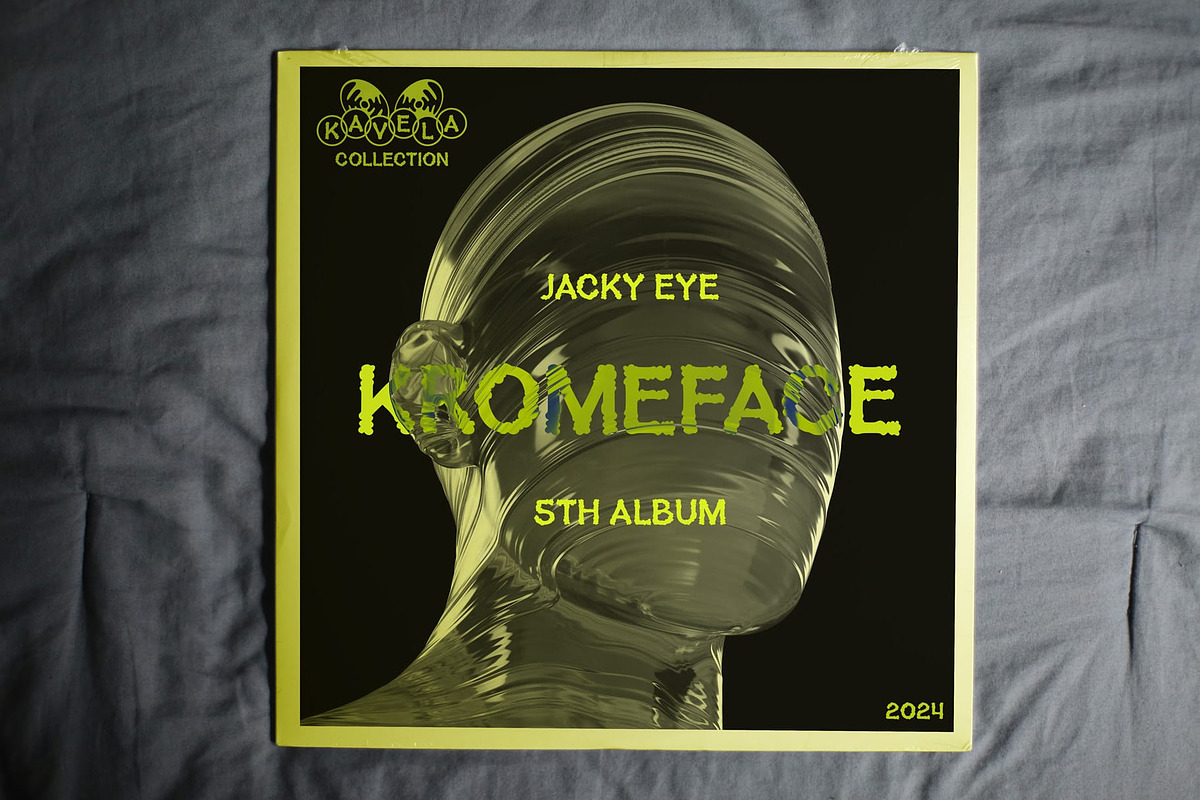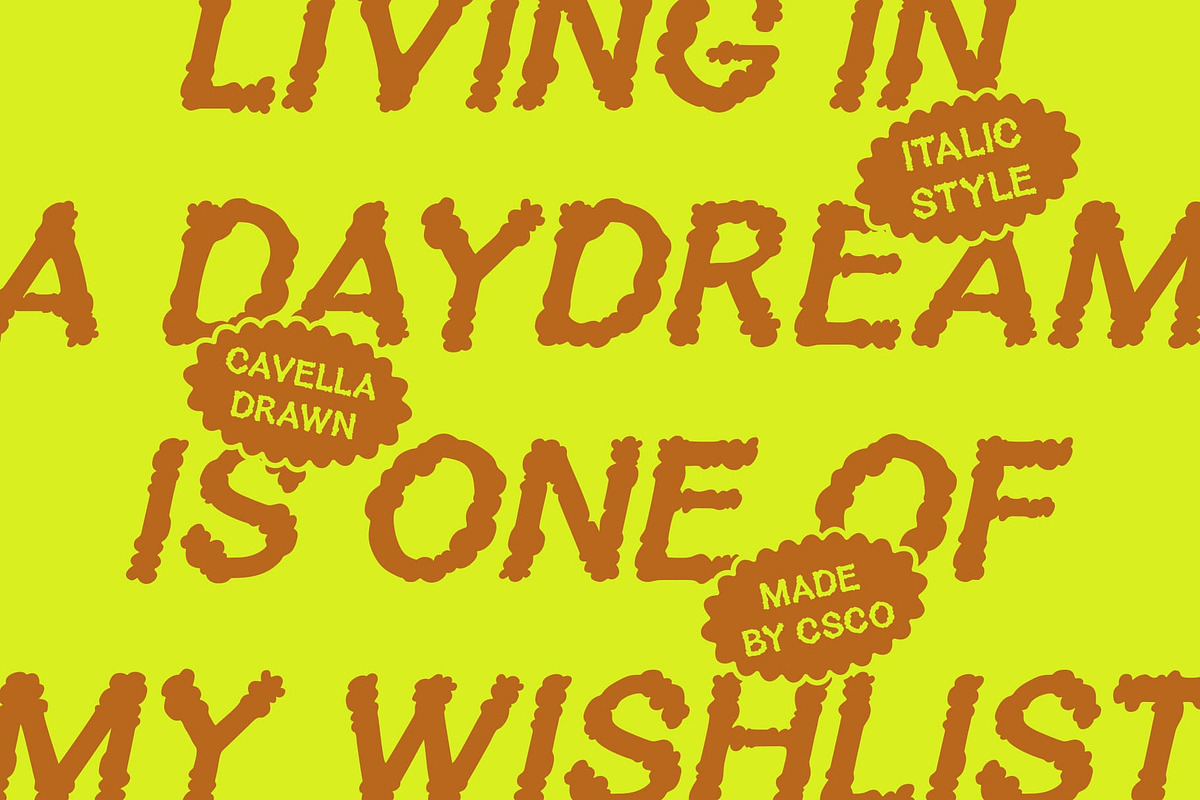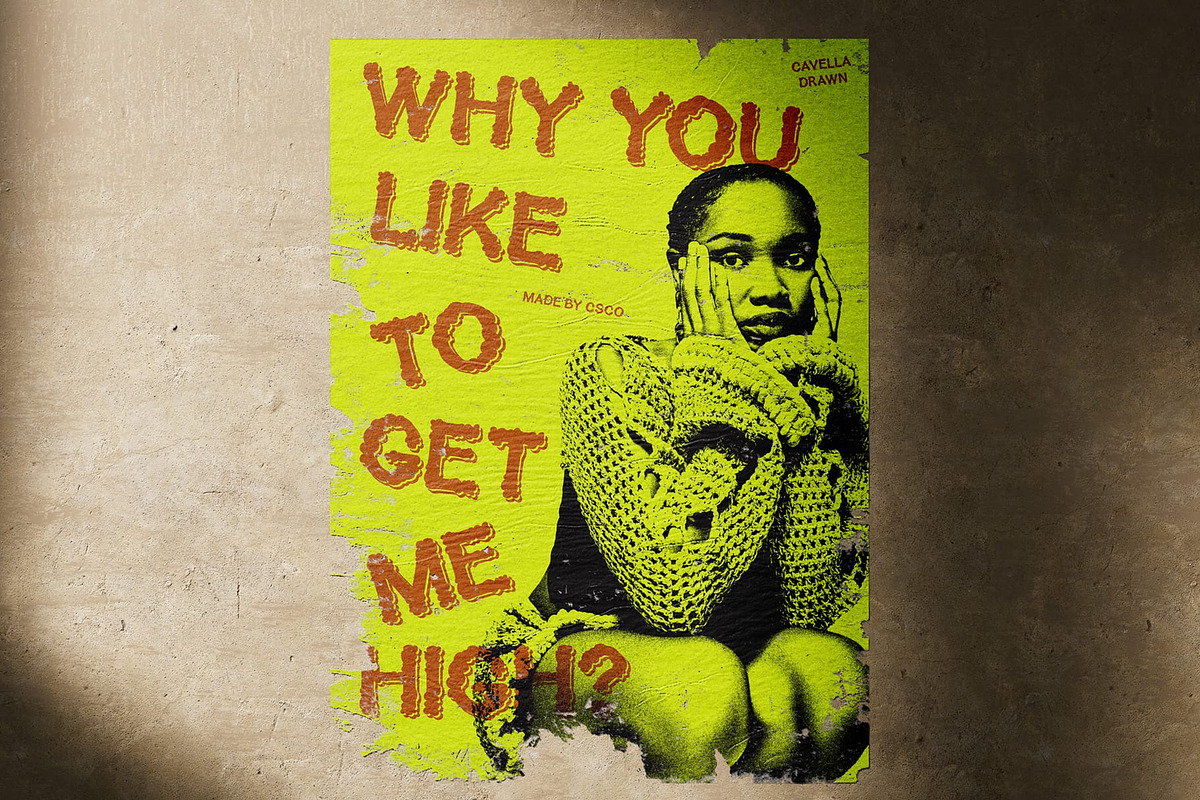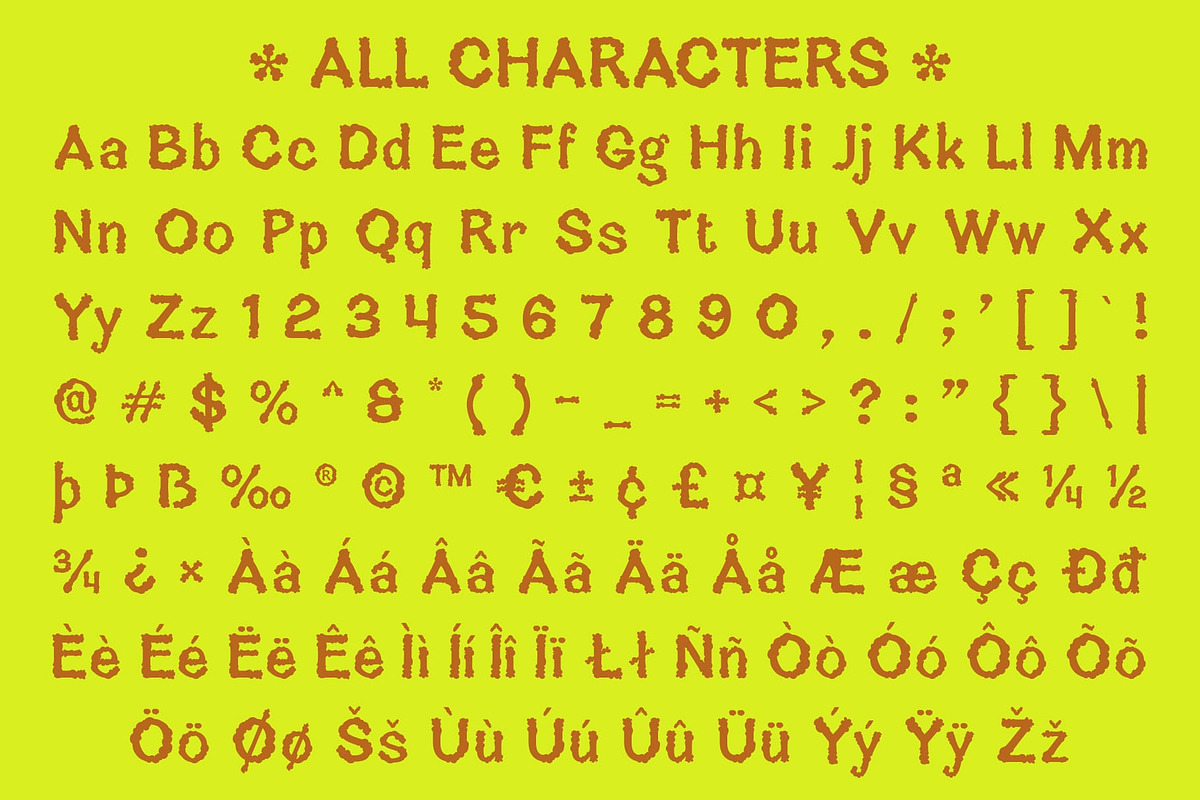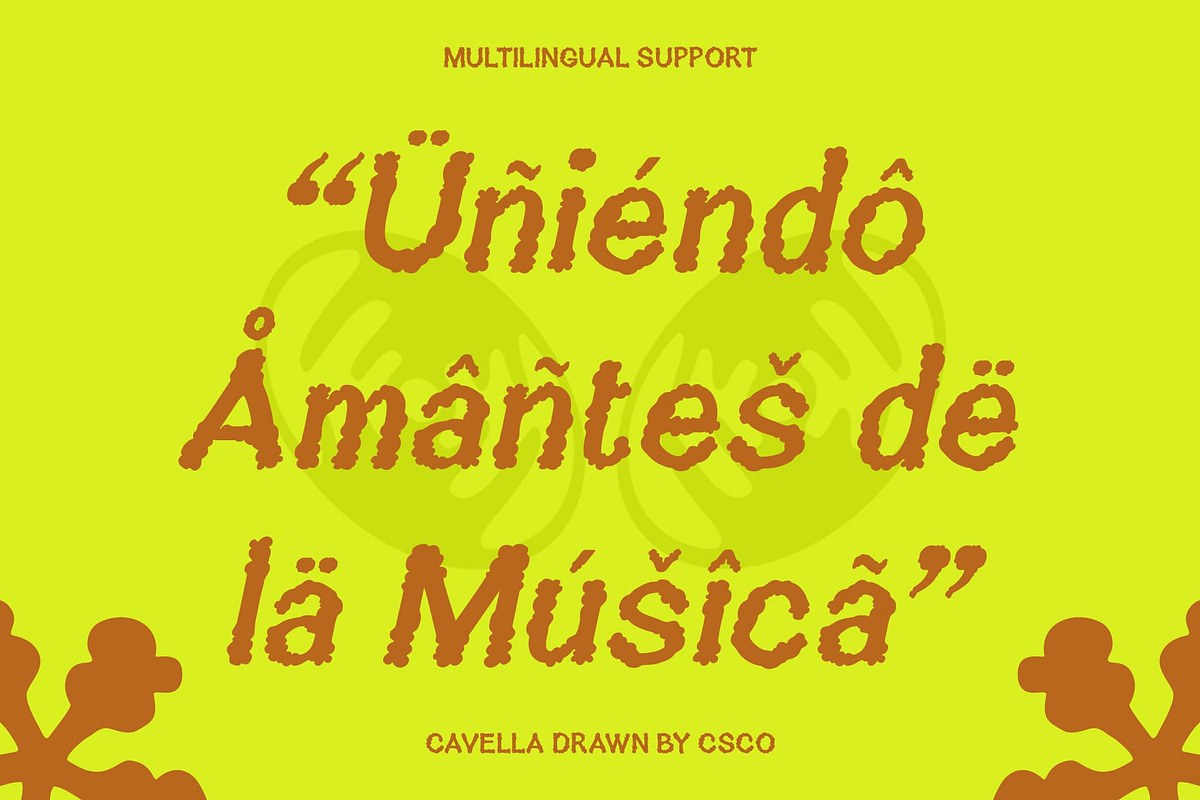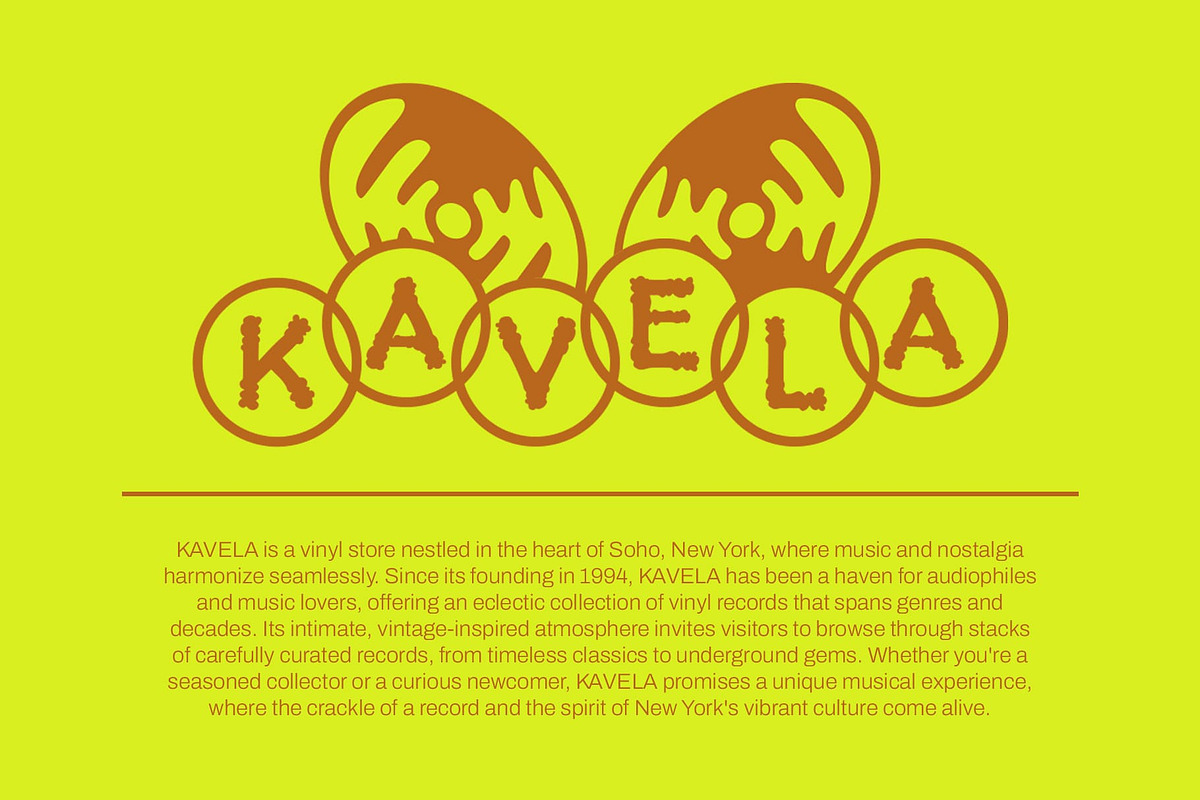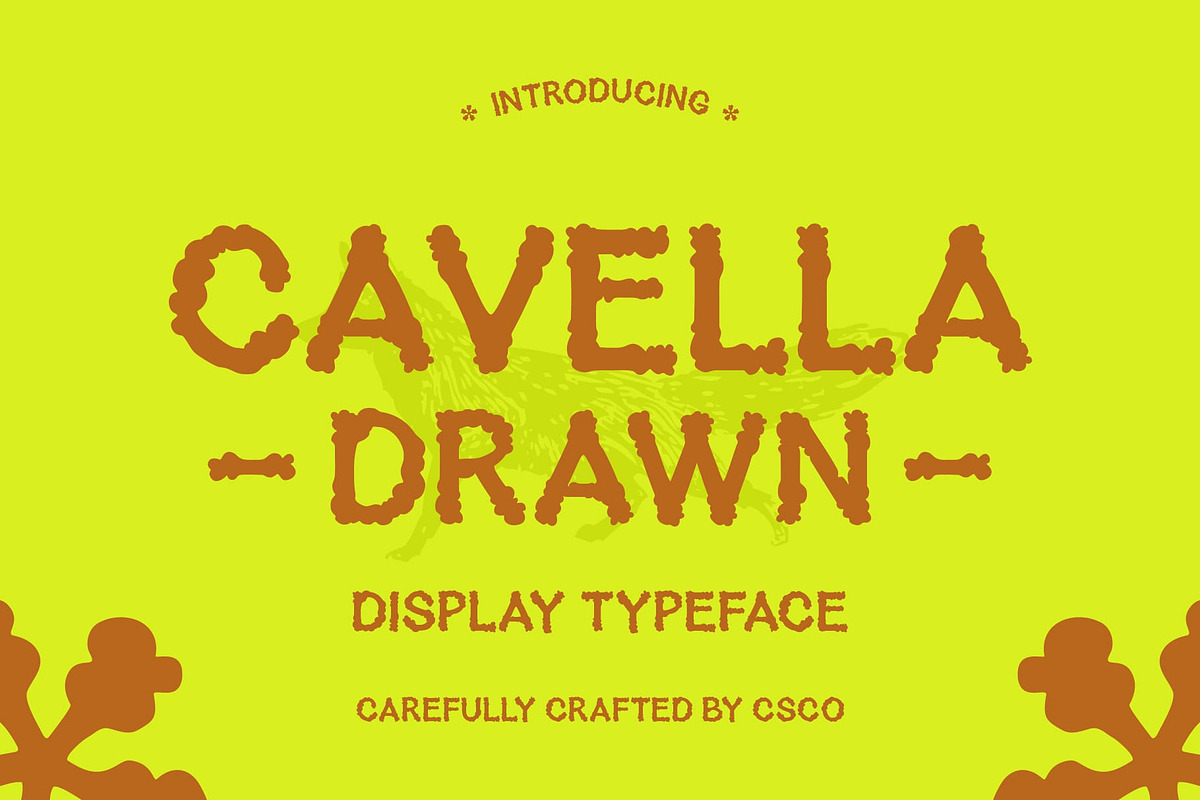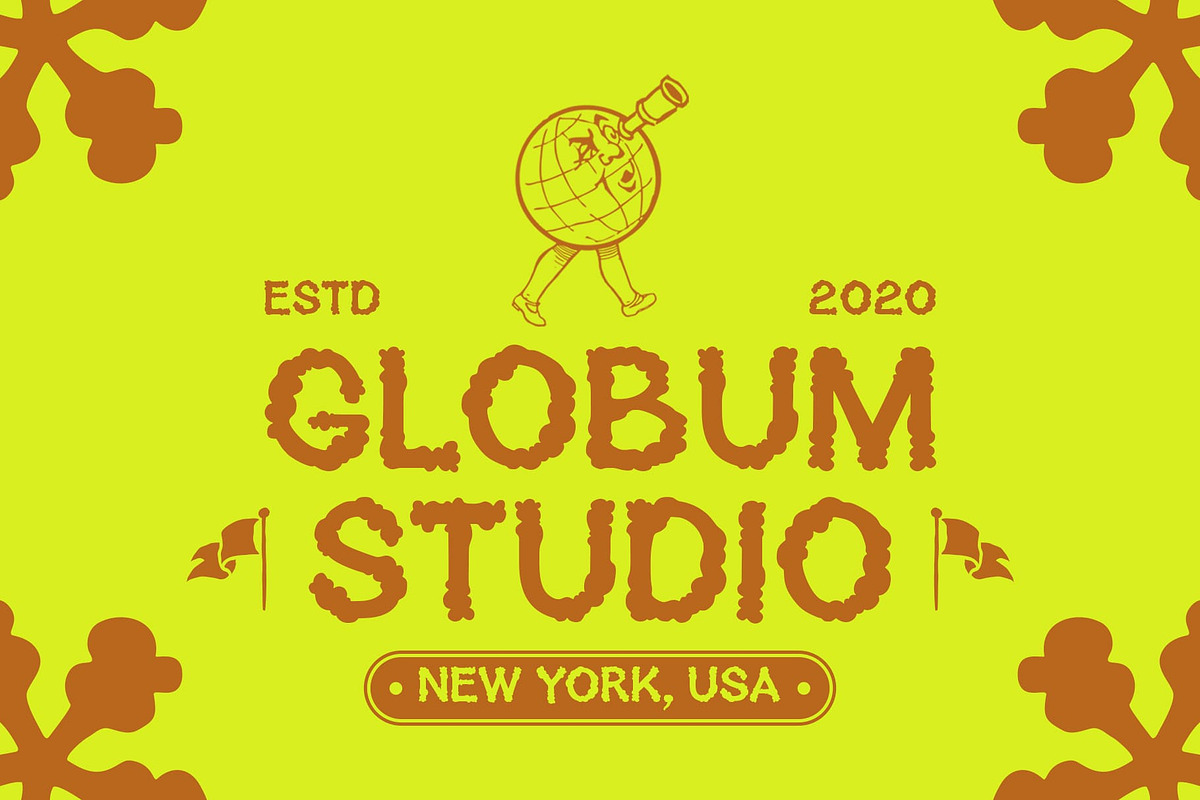
Cavella Drawn
Cavella Drawn Font – Embrace the Psychedelic Flow
Psychedelic Display Font Inspired by Smoke Cavella Drawn is a captivating psychedelic display font that draws inspiration from the fluid movement of smoke, resulting in a mesmerizing swirling appearance. Each letter is uniquely crafted to reflect a sense of motion and dynamism, capturing the essence of creativity and imagination. This font transforms text into an art form, making it an ideal choice for designs that aim to stand out and evoke a sense of wonder.
Funky and Cheerful Vibe with Fluid Details The playful character of Cavella Drawn is enhanced by its funky and cheerful vibe. Each letterform is infused with fluid details, creating an energetic feel that breathes life into your designs. This font is perfect for projects that want to convey a joyful atmosphere, whether it’s a music festival poster or a vibrant branding campaign. Its distinctive style adds an element of fun, ensuring that your message resonates with positivity and creativity.
Artistic Drawn Effect for Unique Appeal With its artistic drawn effect, Cavella Drawn showcases an imaginative quality that sets it apart from conventional fonts. The whimsical curves and organic shapes contribute to its enchanting personality, making it suitable for a wide array of creative projects. Whether you’re designing graphics for events, promotional materials, or album covers, this font provides the artistic flair needed to capture attention and inspire excitement.